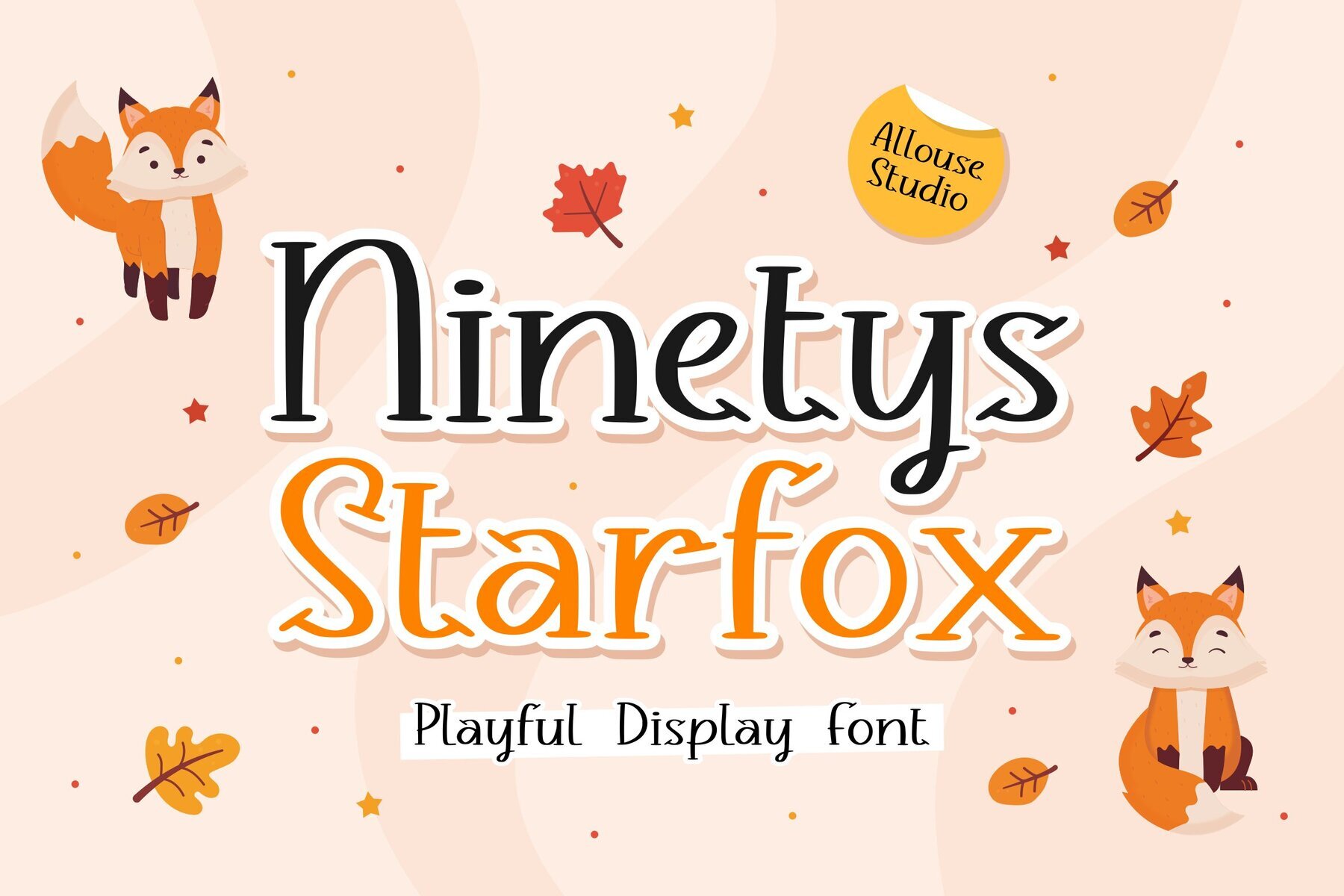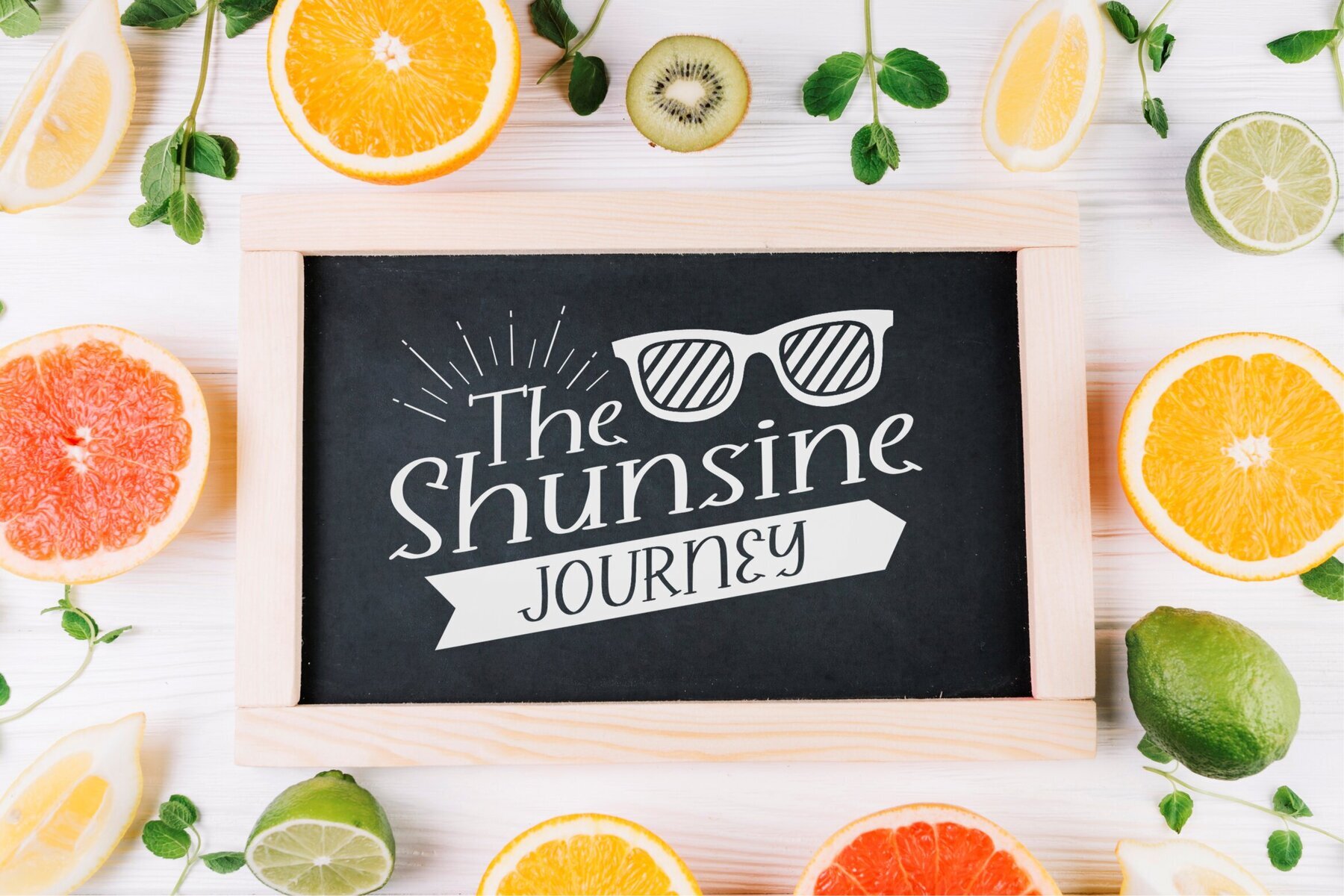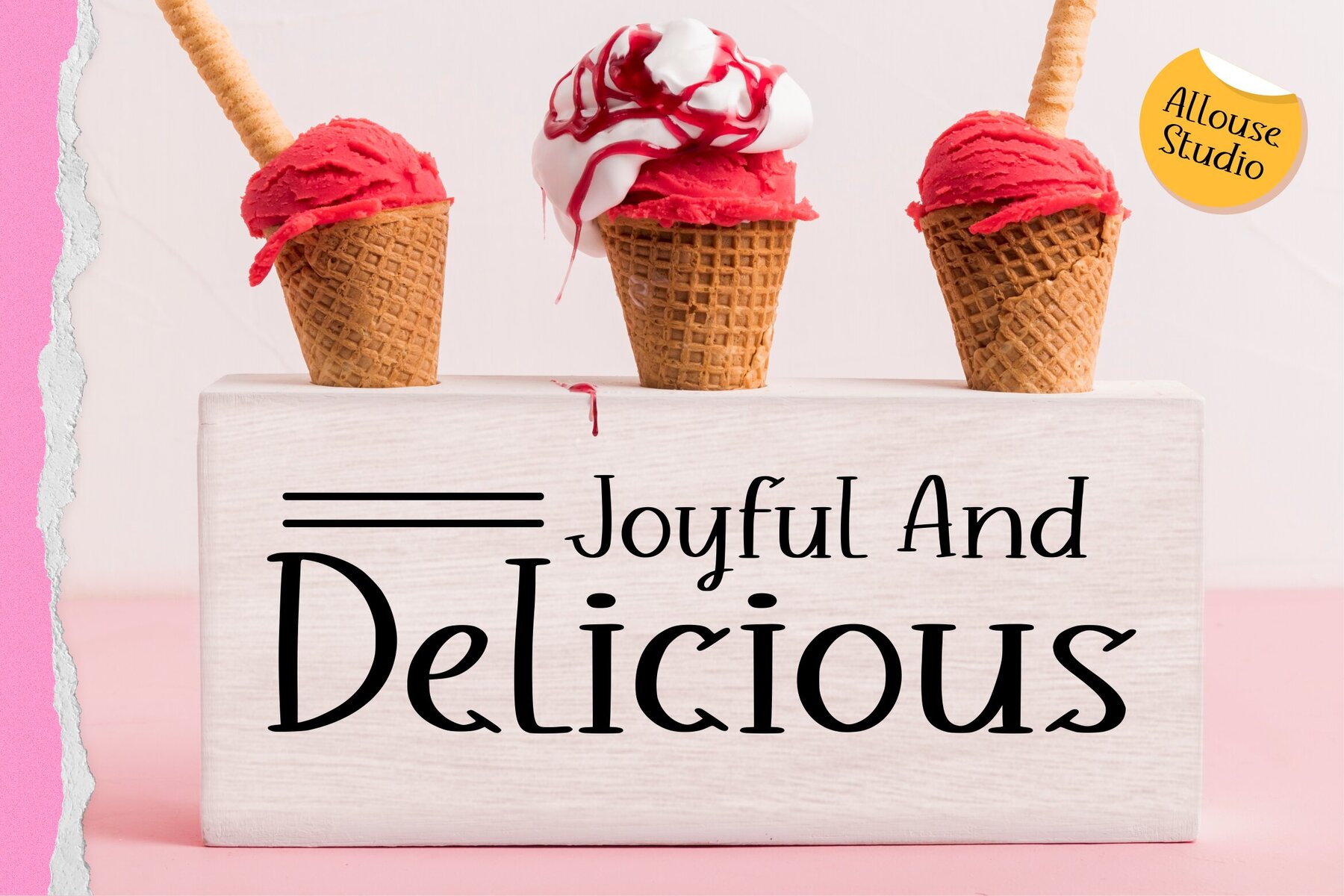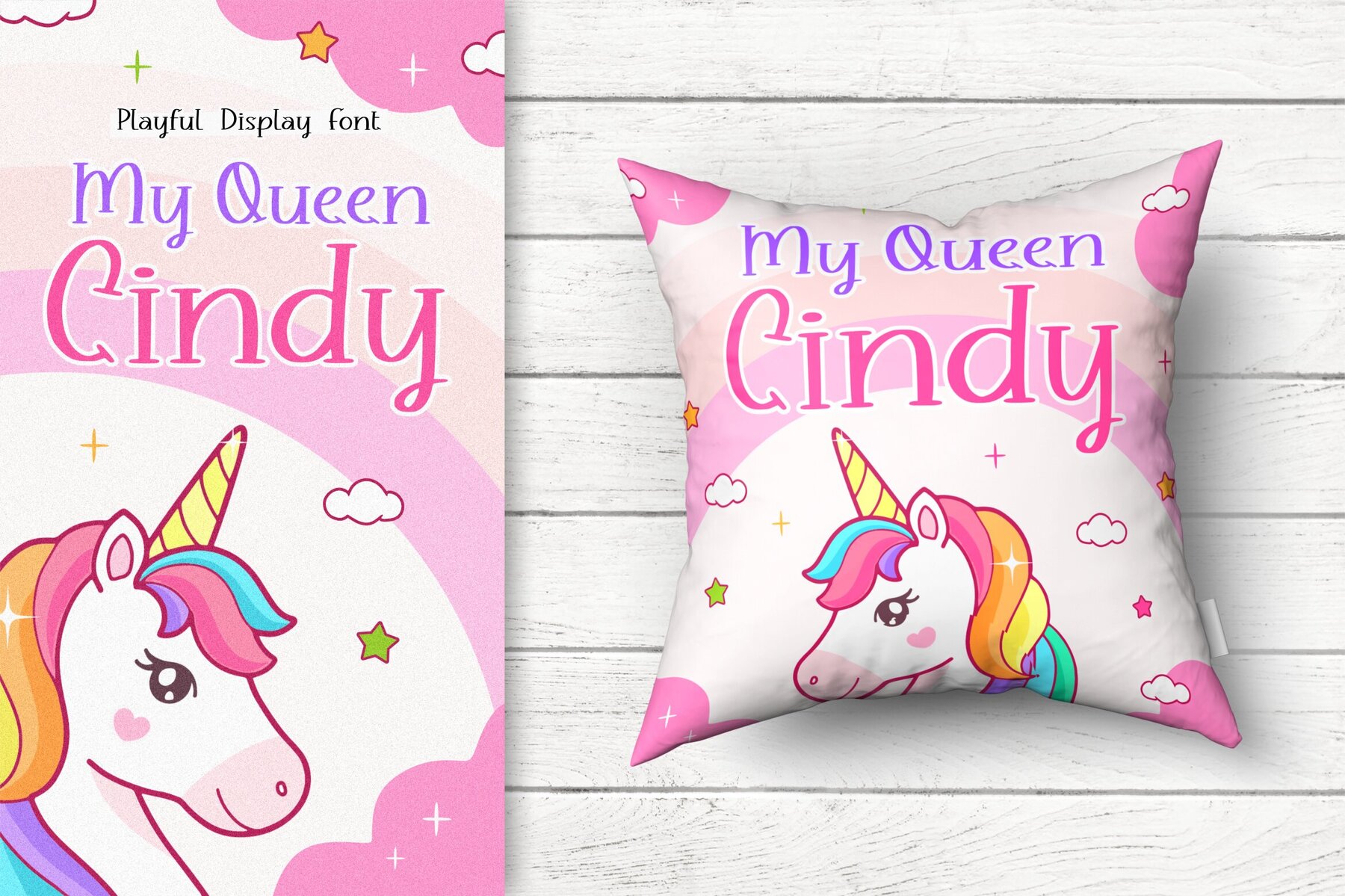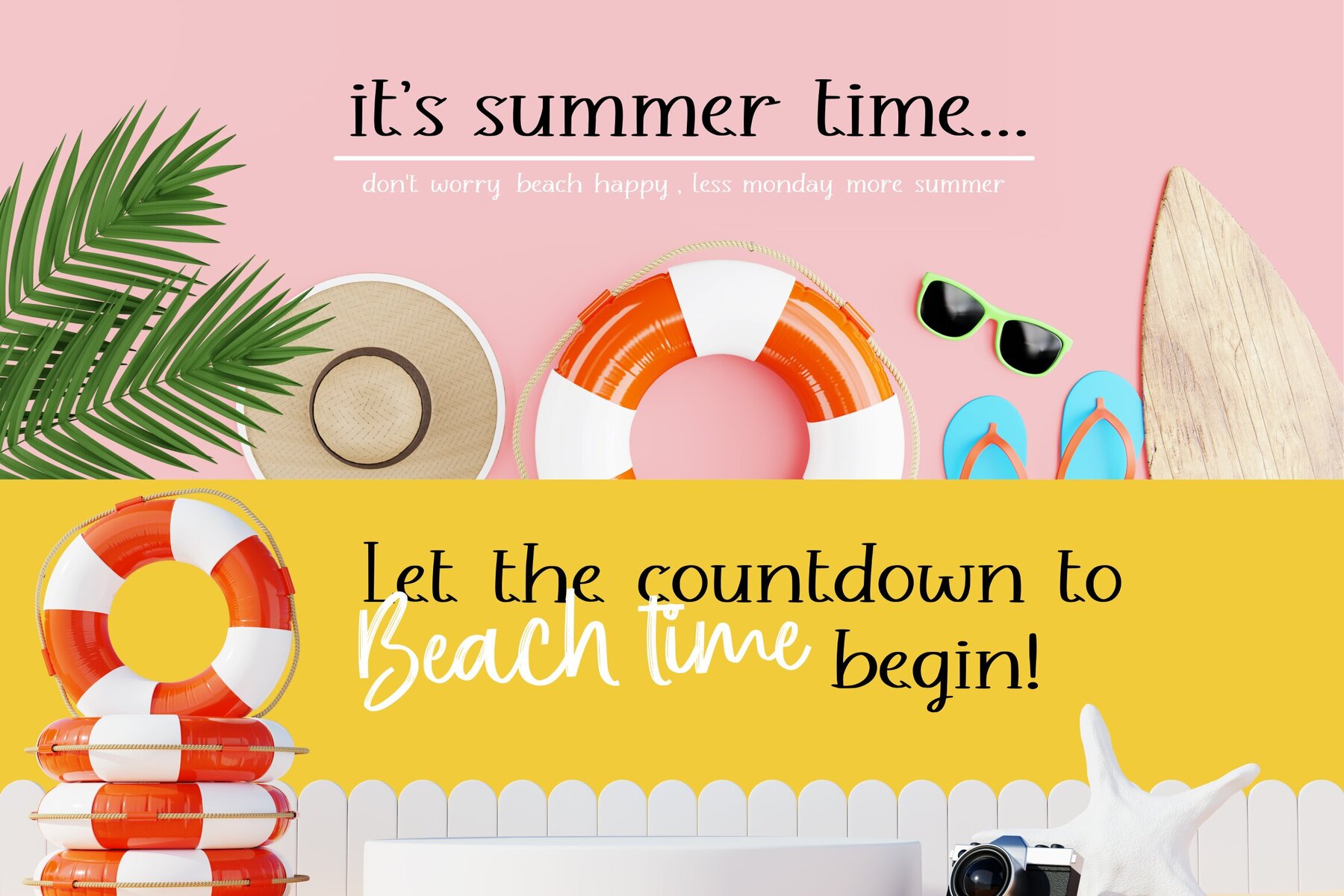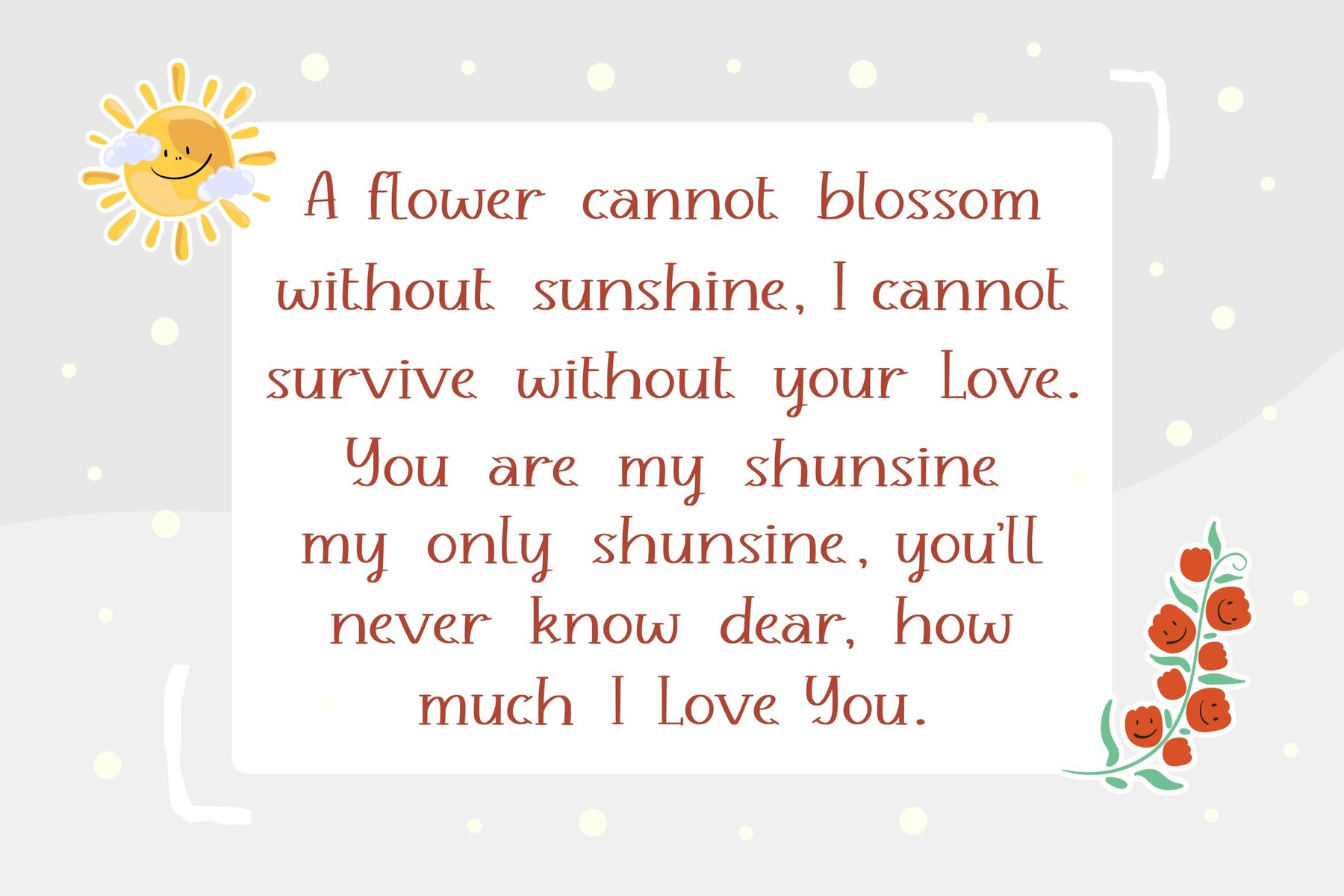
Ninetys Starfox Font
Ninetys Starfox Regular
Ninetys Starfox presents a unique typographic choice, ideal for various creative projects. Its design delivers a modern flair suitable for product packaging, branding initiatives, and editorial layouts. Whether crafting for magazines or embellishing social media content, this font brings elegance and clarity to your words. Features:Ninetys Starfox: Sophisticated Font for Diverse Applications